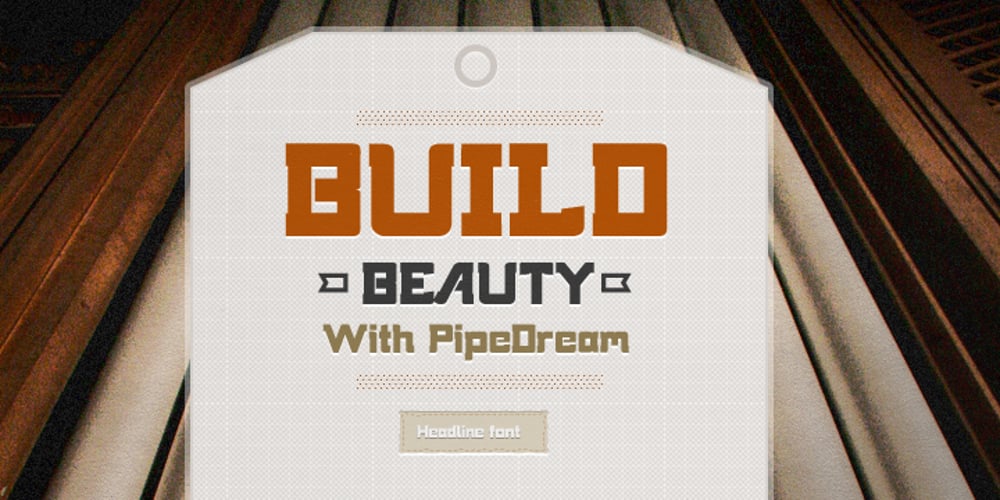
Pipe Dream Font Family was designed by Kyle Lambert and published by Callout. Pipe Dream contains 1 styles and family package options. PipeDream is a thick, slab-serif typeface. It is perfect for short, attention grabbing headlines. Inspired by 1990’s computer games this bold face is a force that refuses to be ignored.